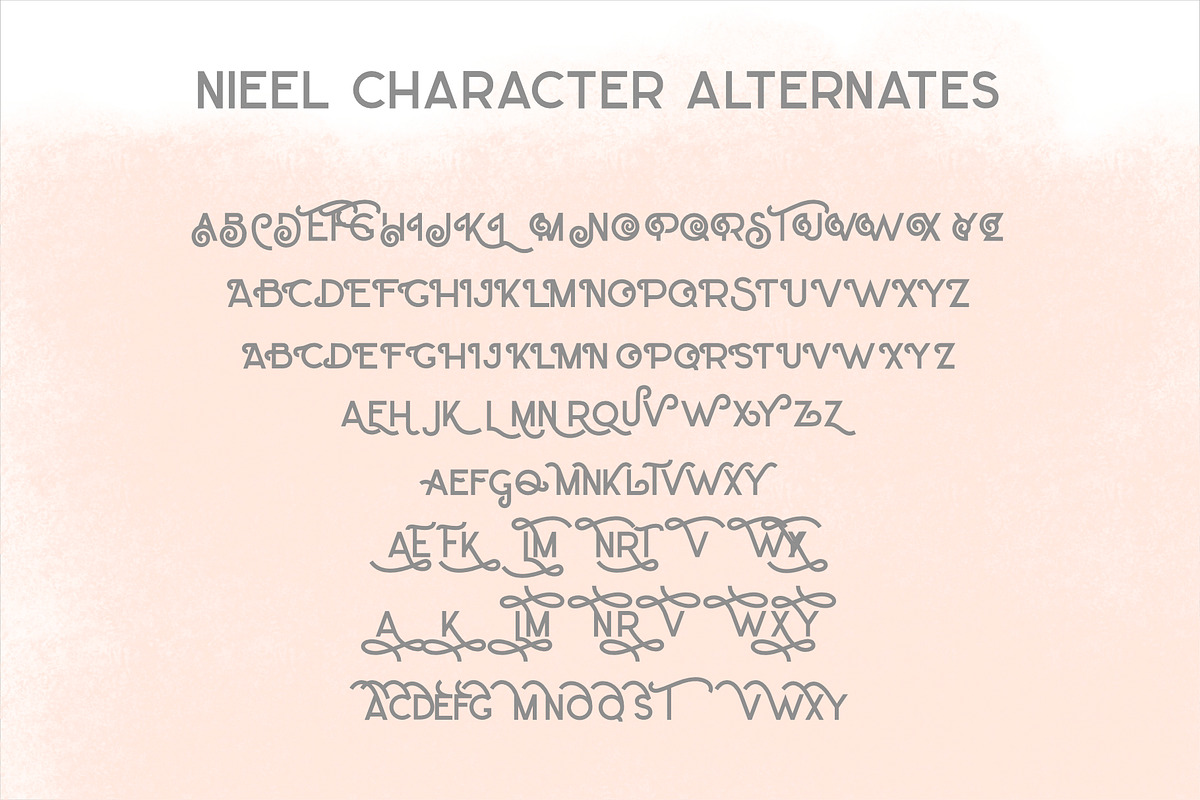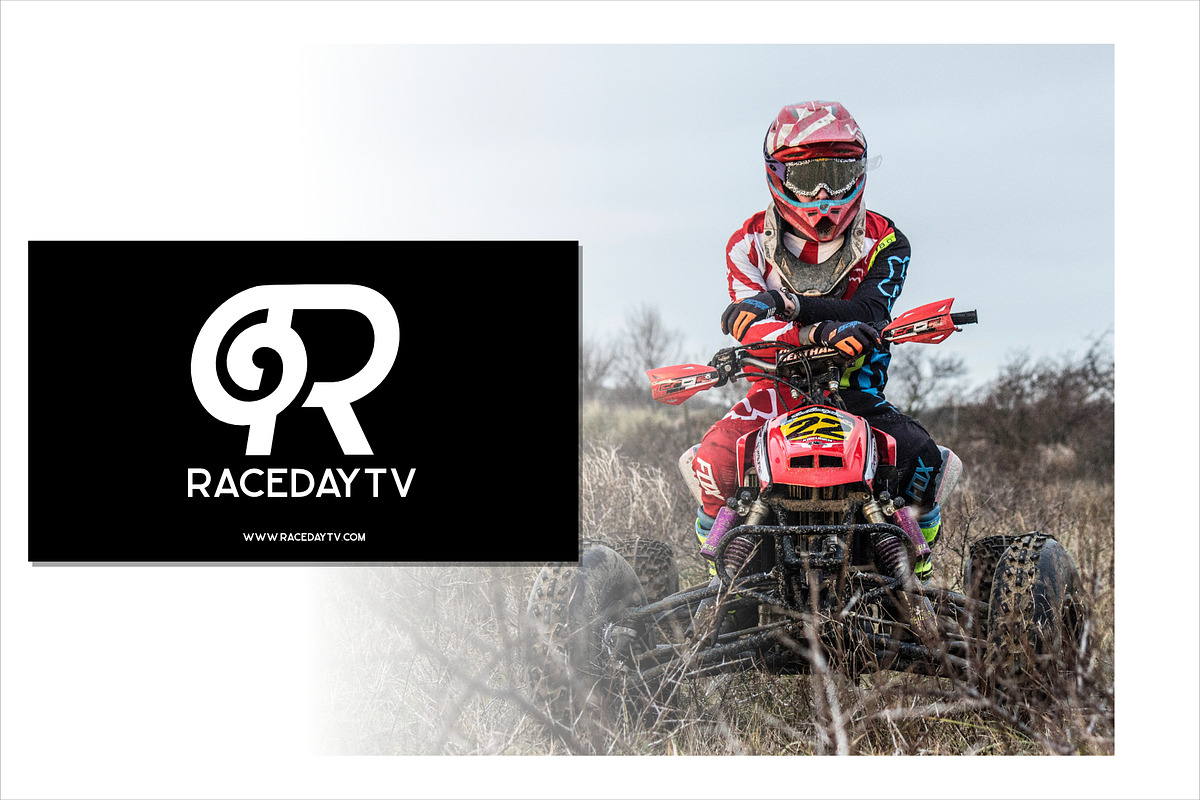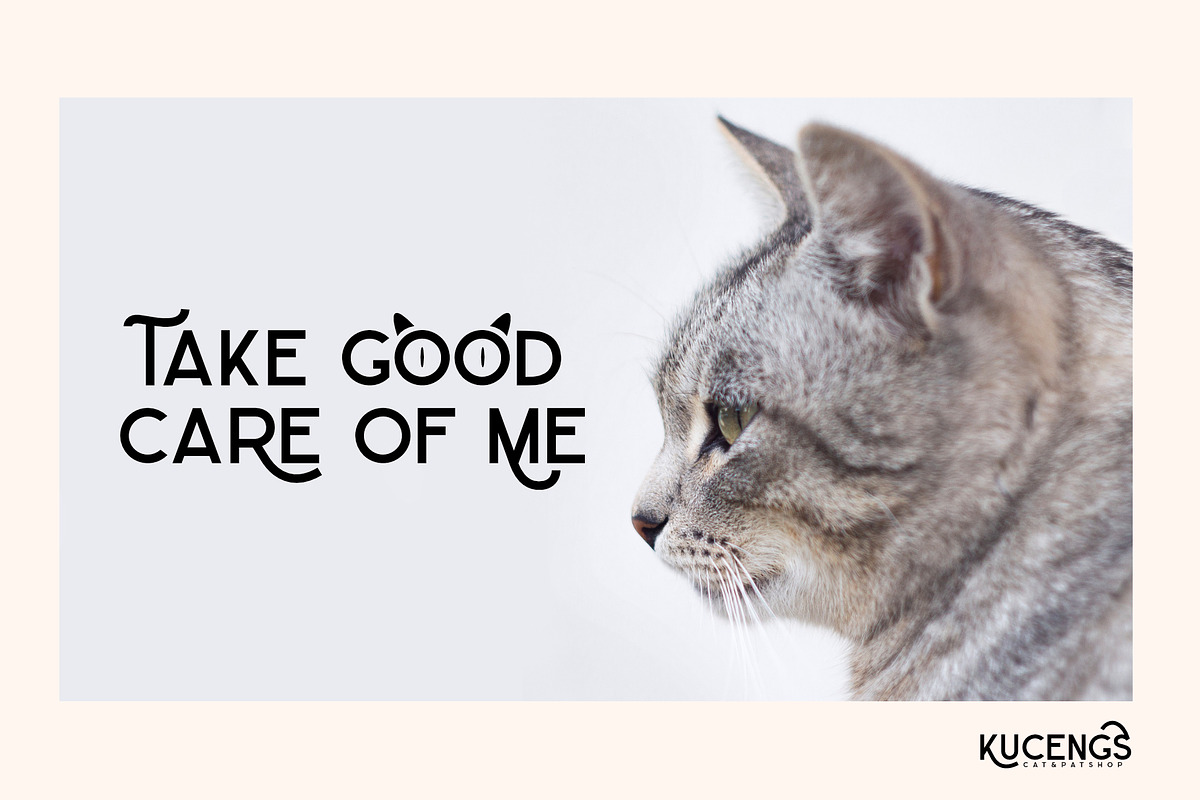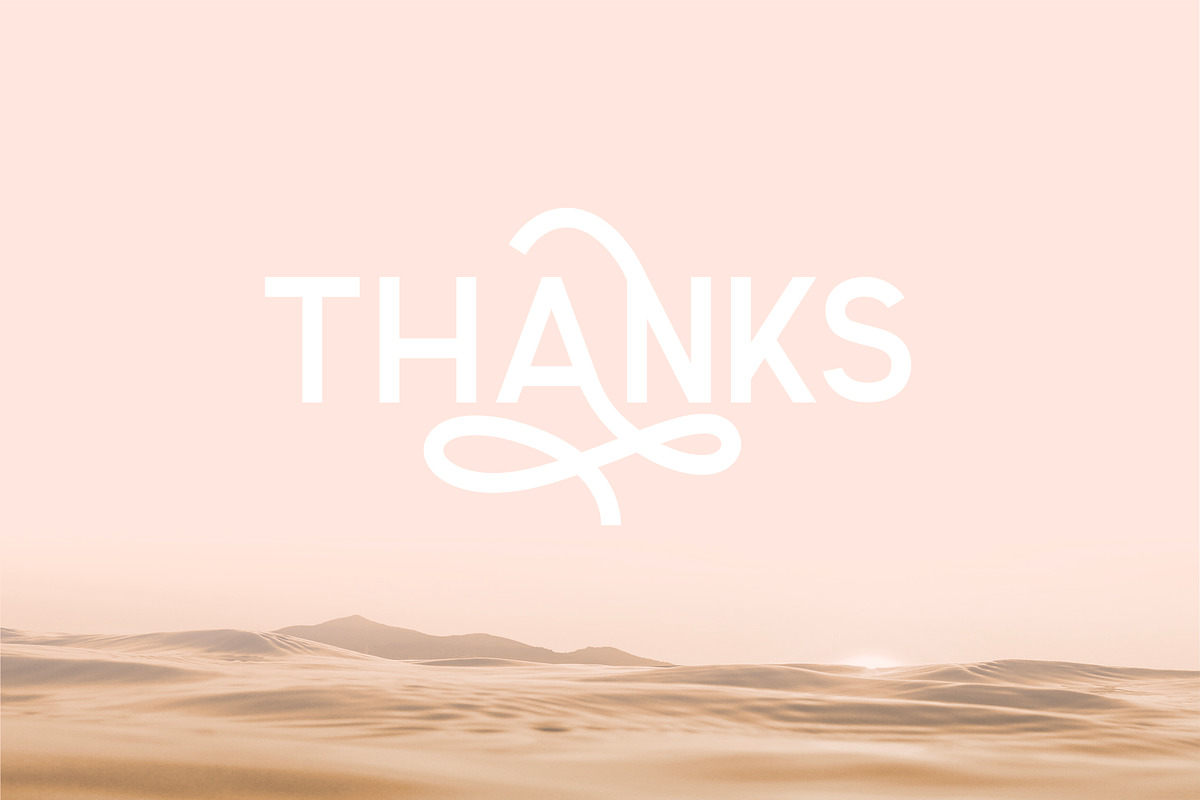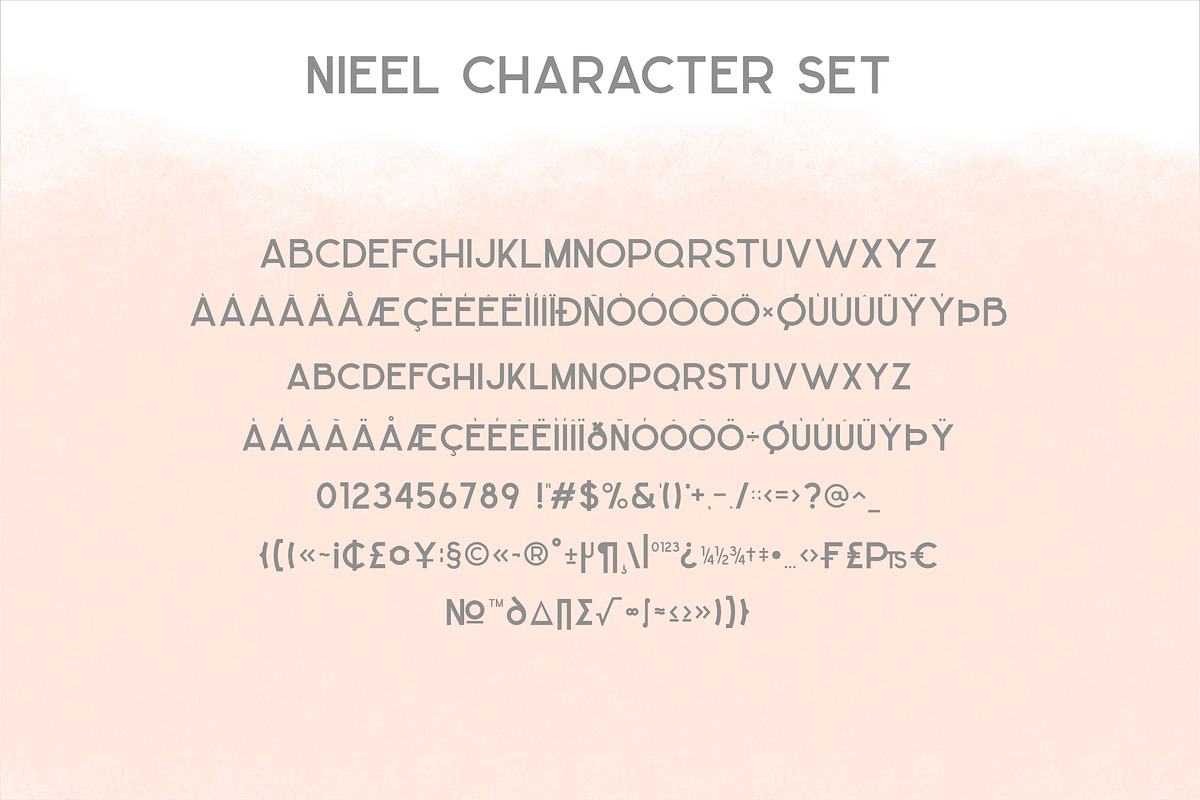
NIEEL
NIEEL - SANS SERIF
Hello friends, introduce us to our new font NIEEL, with a different look from the previous font, this font is kind of sans serif with an elegant, vintage and beautiful taste, and is supported by additional alternatives that can be used for your design, especially poster design , brending, magazines, logos, and with the modern touch and softness of each letter allows this versatile font to be used, so what are you waiting for
- Uppercase Characters
- Lowercase Characters
Foreign Languages Support:
- ÀÁÂÃÄÅÆÇÈÉÊËÌÍÎÏÐÑÒÓÔÕÖØÙÚÛÜÝßàáâãäåæçèéêëìíîïñòóôõöøùúûüýÿ